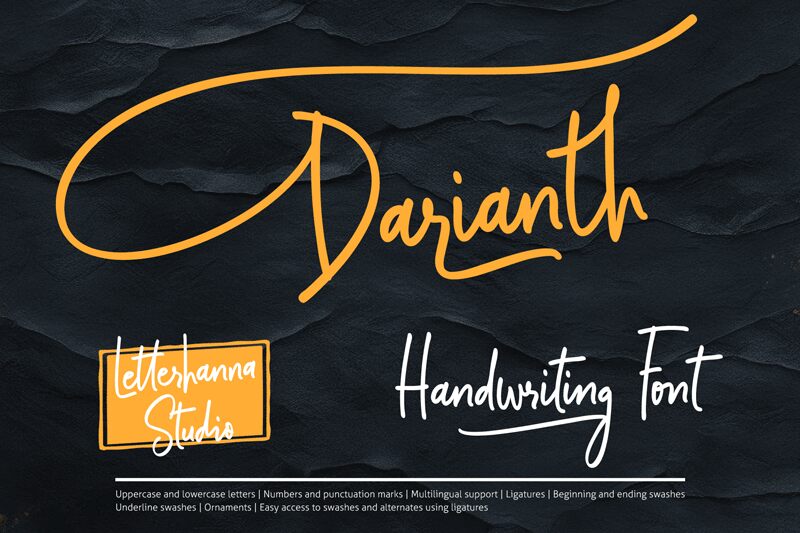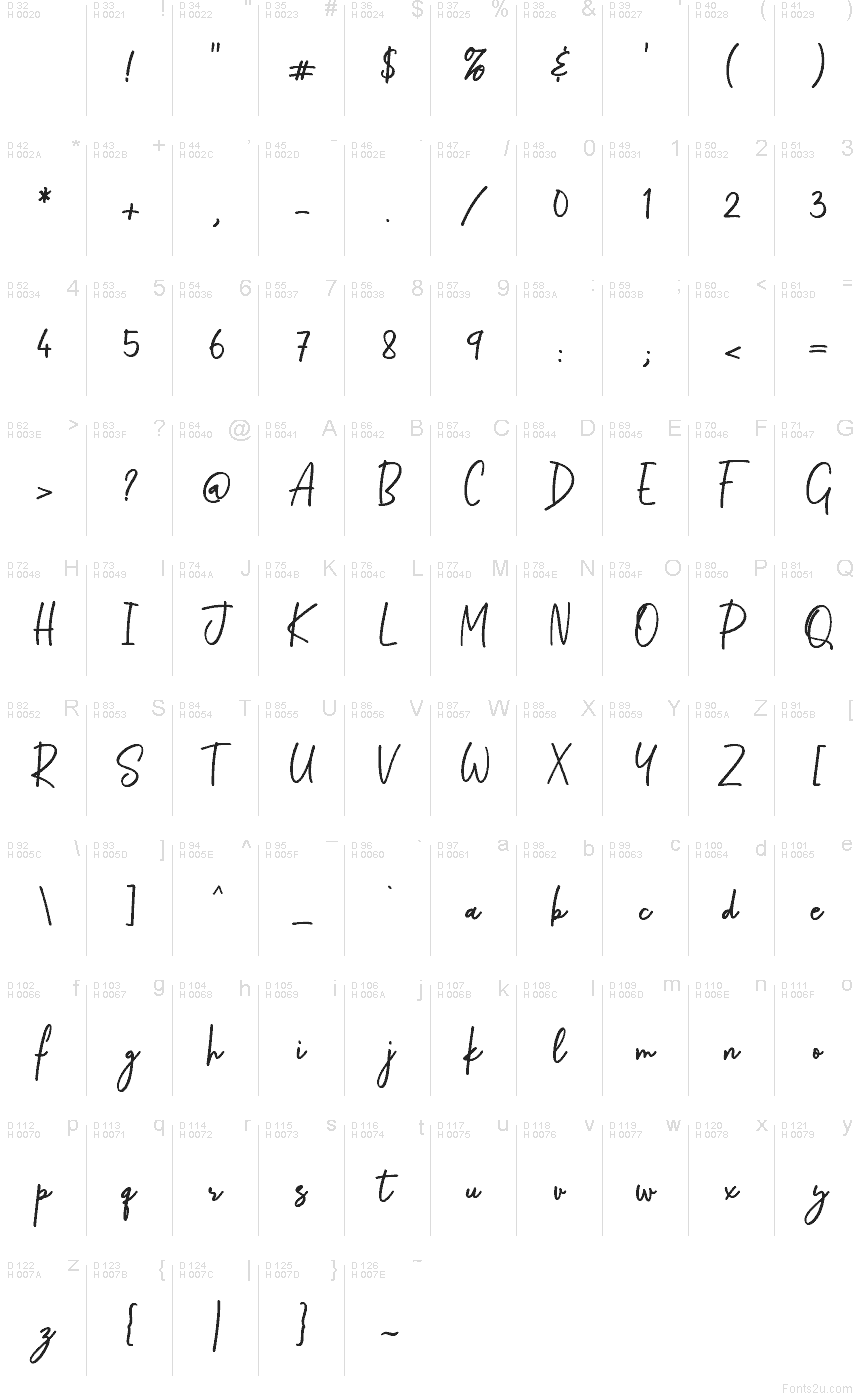
Darianth Regular
Darianth font by Rinaldo Hasibuan of Letterhanna Studio is a free handwritten typeface that looks like a confident, inky signature. Its smooth, slightly slanted strokes feel spontaneous but controlled, as if written with a fine liner on crisp paper. The letters link together in an easy rhythm that keeps even longer words airy and readable, giving brands a polished yet personal voice.
Using Darianth, you can sign off logos, social media graphics, product packaging, wedding stationery, thank-you cards, and personal brand kits with a chic handwritten mark. This free font shines when used large as a signature line, then supported by a clean, simple sans serif for body text to keep everything balanced and legible.